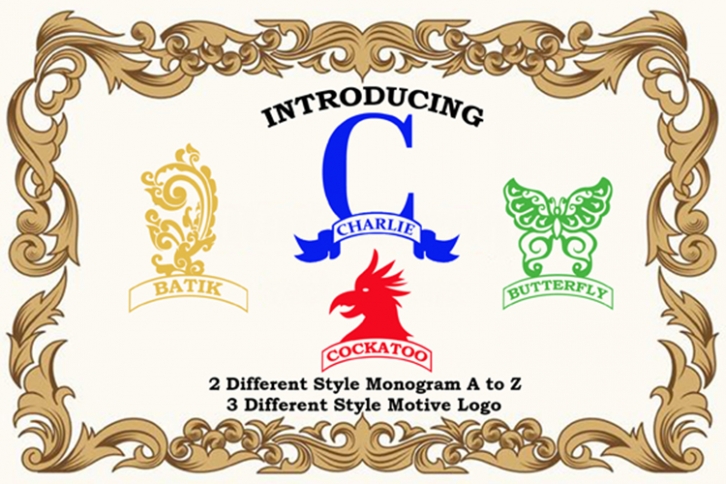
Charlie Monogram is a beautiful font that was designed by FontCloud. It's a great choice for designers and creatives who need such a font. It was released on February 10, 2019 and the file size is 16.44 MB. Charlie Monogram may give a more youthful, expressive and casual look to your project. It is a very beautiful, refined, elegant, and high-quality font.